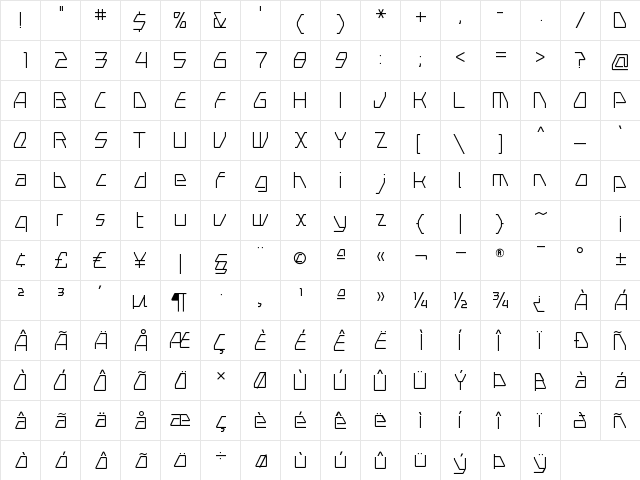
Swerve Light
Design Context for Swerve Typeface
Swerve takes a measured approach to typography — its balanced proportions and neutral character make it a reliable workhorse for both digital and print work. Its slender proportions lend an understated elegance to any composition.
Pro Tip: Use Swerve in both headline and body roles to test its range before committing to a single application.